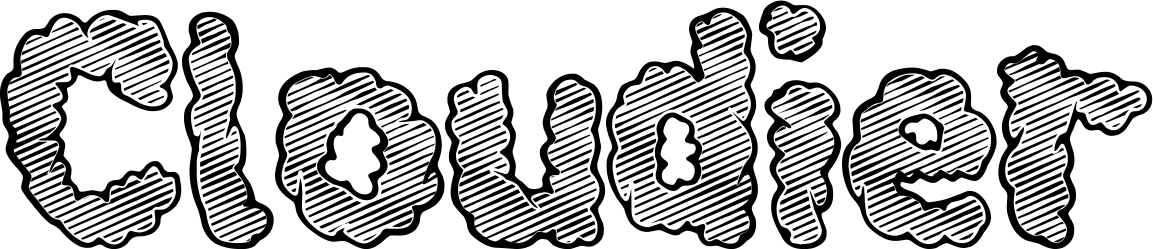
Cloudier Font
If you need a unique fluffy font for your text or headline, this post can help you out! In this cloud font, every character is shaped like a cloud which gives a cheerful and dreamy vibe to your texts.
You can use this font for children’s books, informal headlines, channel banners, or friendly texts. Cloudier does not contain all the characters.